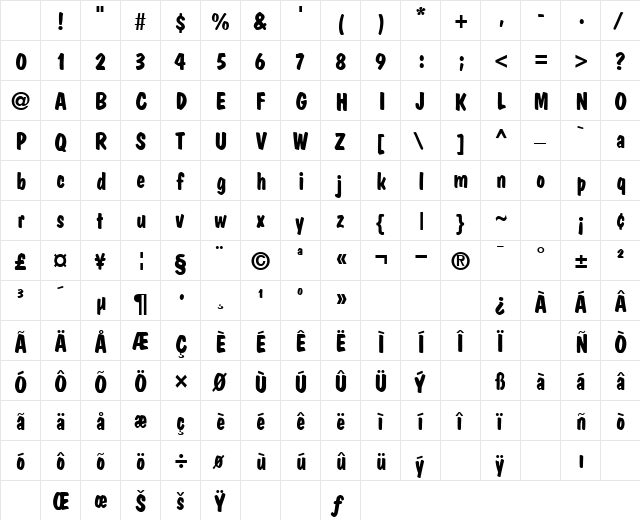
Complete Palenque Bold glyph index. Displaying only characters natively supported by Palenque Bold font.
Palenque is a composed and adaptable typeface that performs quietly and consistently across a wide range of design contexts. Its bold stroke weight gives it real presence on the page.